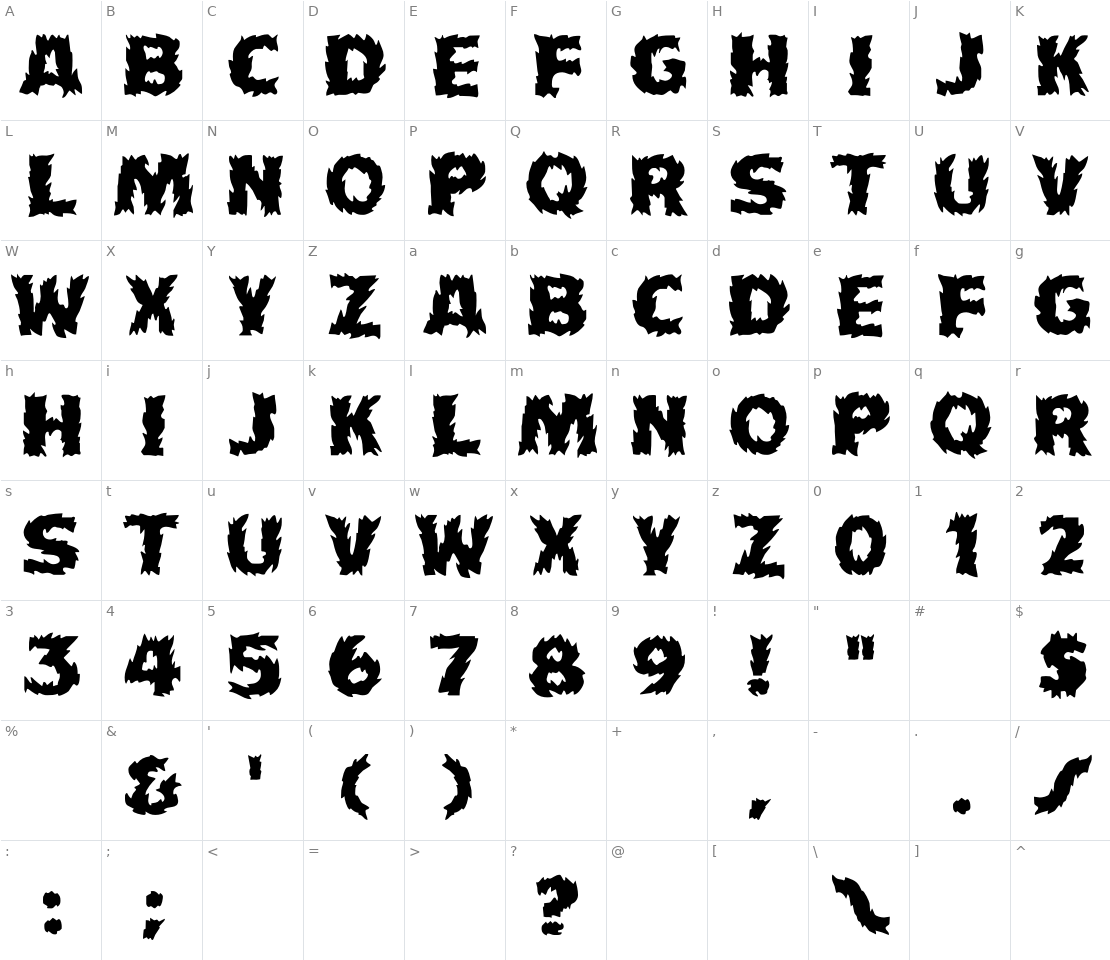
HFF Fire Dancer
by Have Fun with Fonts
HFF Fire Dancer is a heavy, flame-licked display face from Have Fun with Fonts, with bold letterforms that look like they're warping and curling under intense heat. The rough, distressed edges and dark energy make it a natural fit for horror posters, metal album art, and event flyers where you need type that feels dangerous. Best kept big, where the fiery detail in each character really comes through.